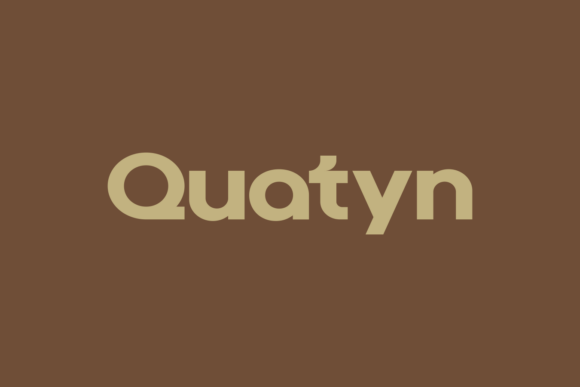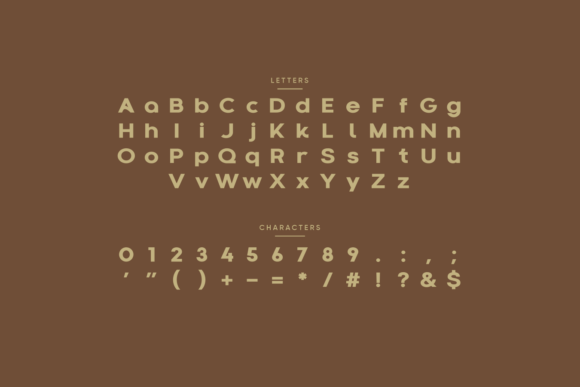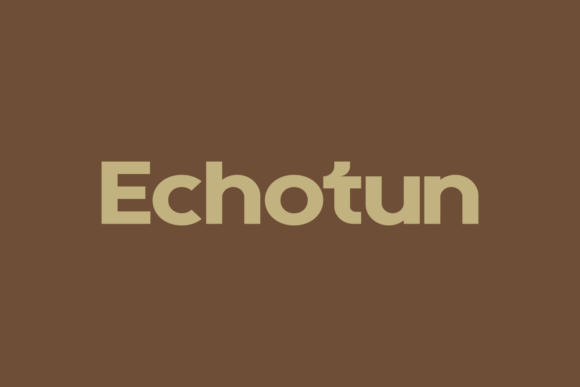
Unlocking the Perfect Rhythm: Introducing the Ackoly Font
Imagine you’re working on a project that requires a perfect blend of modernity and warmth. You’ve got a tight deadline, and every detail counts. That’s when you need a font that can elevate your design and give it a unique voice. You’ve probably searched high and low for the perfect font, only to end up with something that’s either too bold or too bland. But what if I told you there’s a font that can solve this problem?
Meet the Ackoly Font, a contemporary geometric display sans that’s designed to give your designs a crisp, tech-savvy voice with a touch of warmth. Its unique features and characteristics make it a valuable asset for designers who want to create premium and modern designs that stand out from the crowd.
Whether you’re working on a wordmark, editorial title, packaging, poster, or signage, the Ackoly Font is the perfect choice. Its rhythm scales beautifully, making it a versatile font that can adapt to any design project.
Ackoly Font Key Features
- Font Family: Ackoly is a sans-serif font family.
- Character Set: Includes a wide range of characters, including Latin, Cyrillic, and Greek alphabets, as well as punctuation and symbols.
- Unique Characteristics: Features a clean, modern design with subtle rounded edges and a high x-height for improved readability.
Ackoly Font Review
Overall, I think Ackoly Font is a great choice for those looking for a modern and elegant sans-serif font. ✨ Here are some of its standout features:
- Unique aesthetic**: Ackoly Font has a distinctive style that sets it apart from more common sans-serif fonts.
- Excellent legibility**: The font is highly readable, making it perfect for body text and long-form content.
- Wide language support**: Ackoly Font supports a wide range of languages, making it a great choice for international projects.
- Limited font weights**: Ackoly Font only comes in a few weights, which may limit its usability for certain design projects. ⚠️
- No italic styles**: The font does not include italic styles, which may be a drawback for designers who rely on italic text for emphasis. ⚠️
Overall, I think Ackoly Font is a solid choice for designers looking for a modern and elegant sans-serif font. While it may not be perfect, its unique aesthetic and excellent legibility make it a great option for a wide range of projects.
Tips for Getting the Most Out of Ackoly Font
Use Ackoly font for headings and titles to add a touch of elegance and sophistication to your designs.
Pair Ackoly font with a clean and simple sans-serif font for body text to create a visually appealing contrast.
Experiment with different font sizes and styles to create a unique and eye-catching visual hierarchy.
Ackoly font is ideal for:
Any design project where a touch of elegance and sophistication is desired
Alternatives to Ackoly Font
Monserrat is a modern sans-serif font designed by Julieta Ulanovsky. It’s ideal for use in digital products, web design, and advertising. Montserrat is more geometric and has a strong grid-based structure compared to Ackoly Font, which has a more rounded feel.
Open Sans is a clean and modern sans-serif font designed by Steve Matteson. It’s suitable for use in digital products, websites, and applications. Open Sans is more legible and has a neutral tone, whereas Ackoly Font has a more distinctive and playful feel.
Lato is a modern sans-serif font designed by Łukasz Dziedzic. It’s ideal for use in digital products, web design, and advertising. Lato is more elegant and refined compared to Ackoly Font, which has a more casual and approachable feel.
Q: What is the recommended font size for Ackoly Font?
The recommended font size for Ackoly Font is between 12pt and 24pt. This font is designed to be highly legible at larger sizes, making it ideal for headlines, titles, and other display typography. However, you can experiment with different font sizes to find the optimal size for your specific design project.